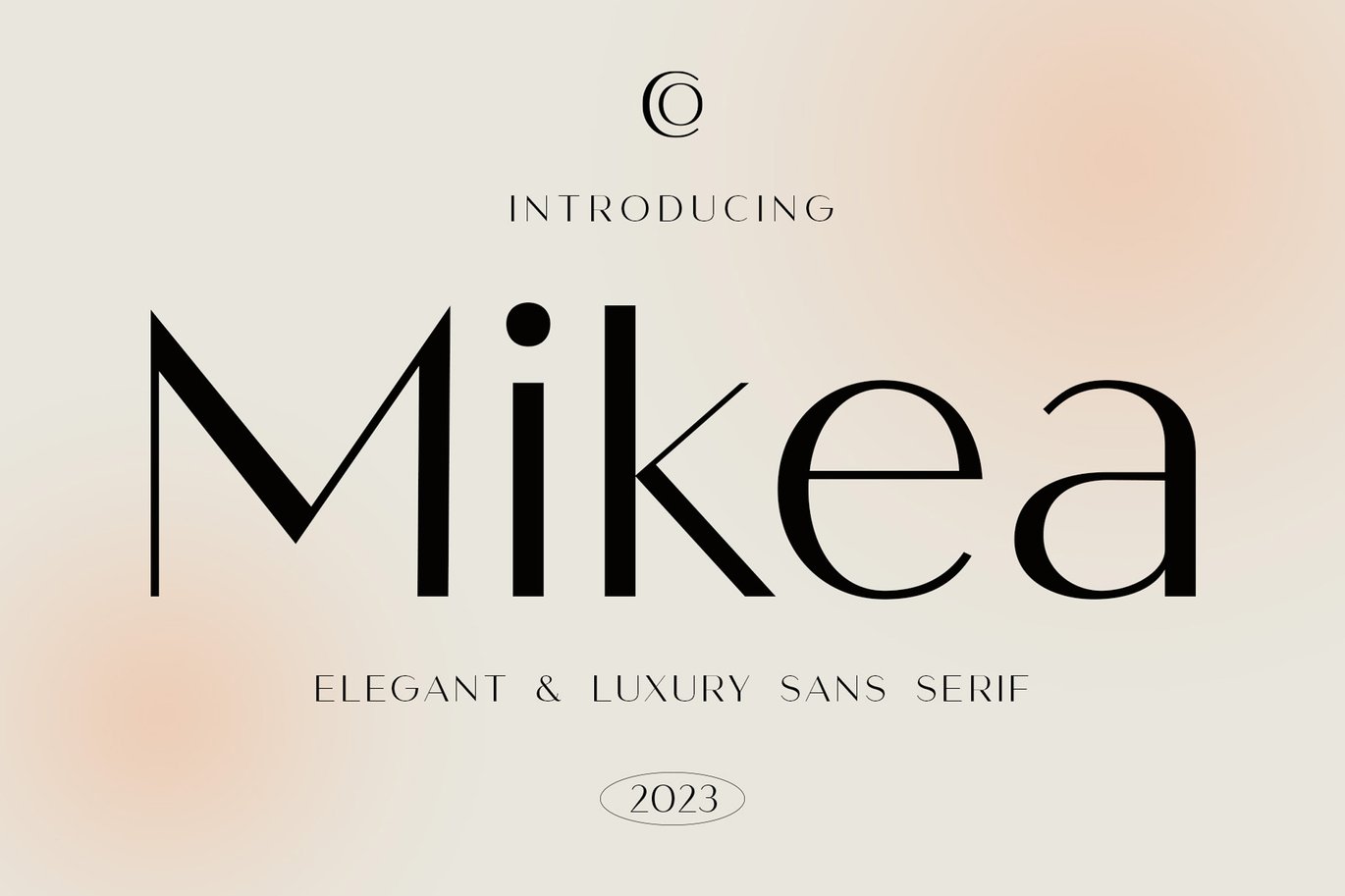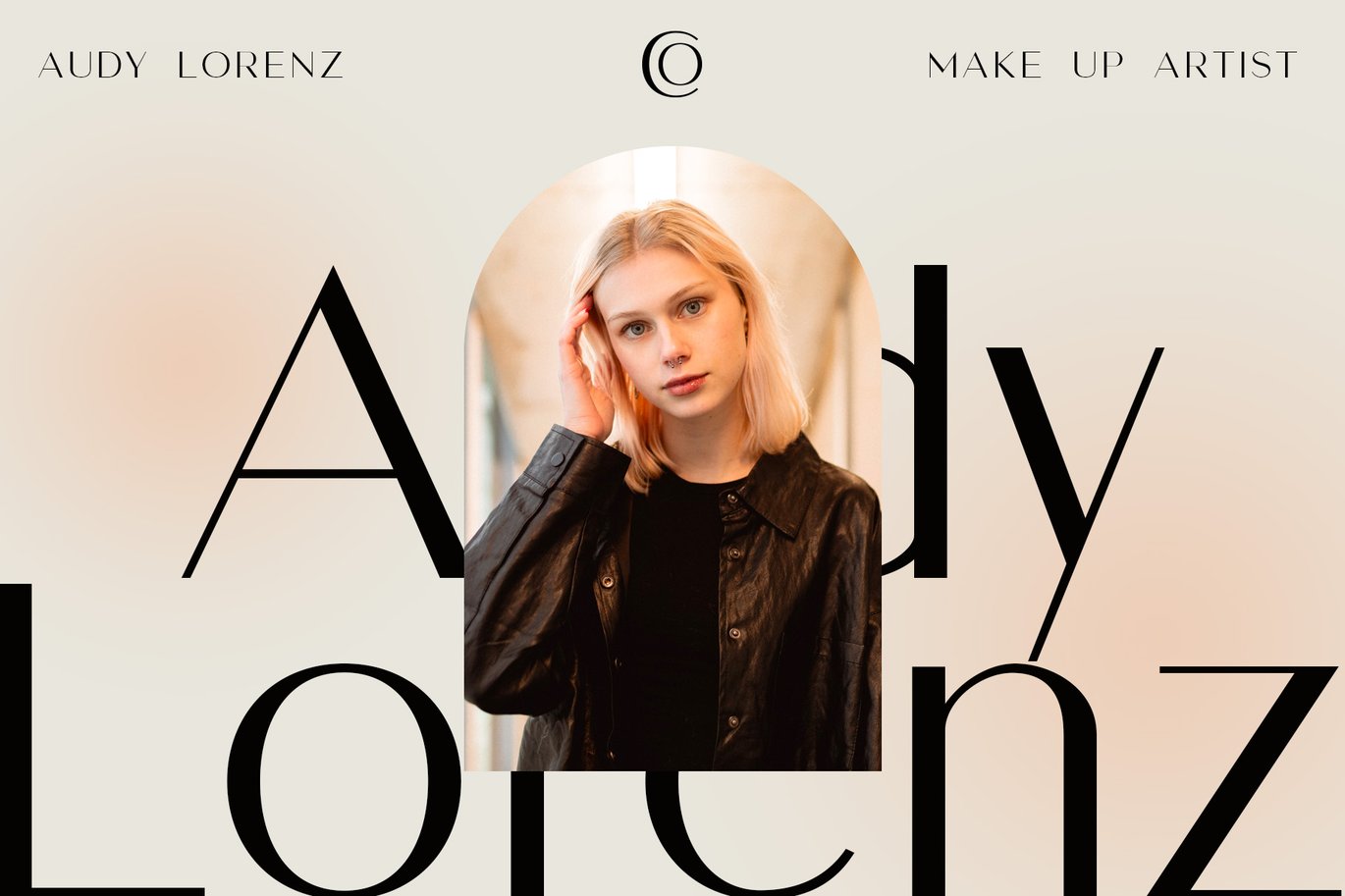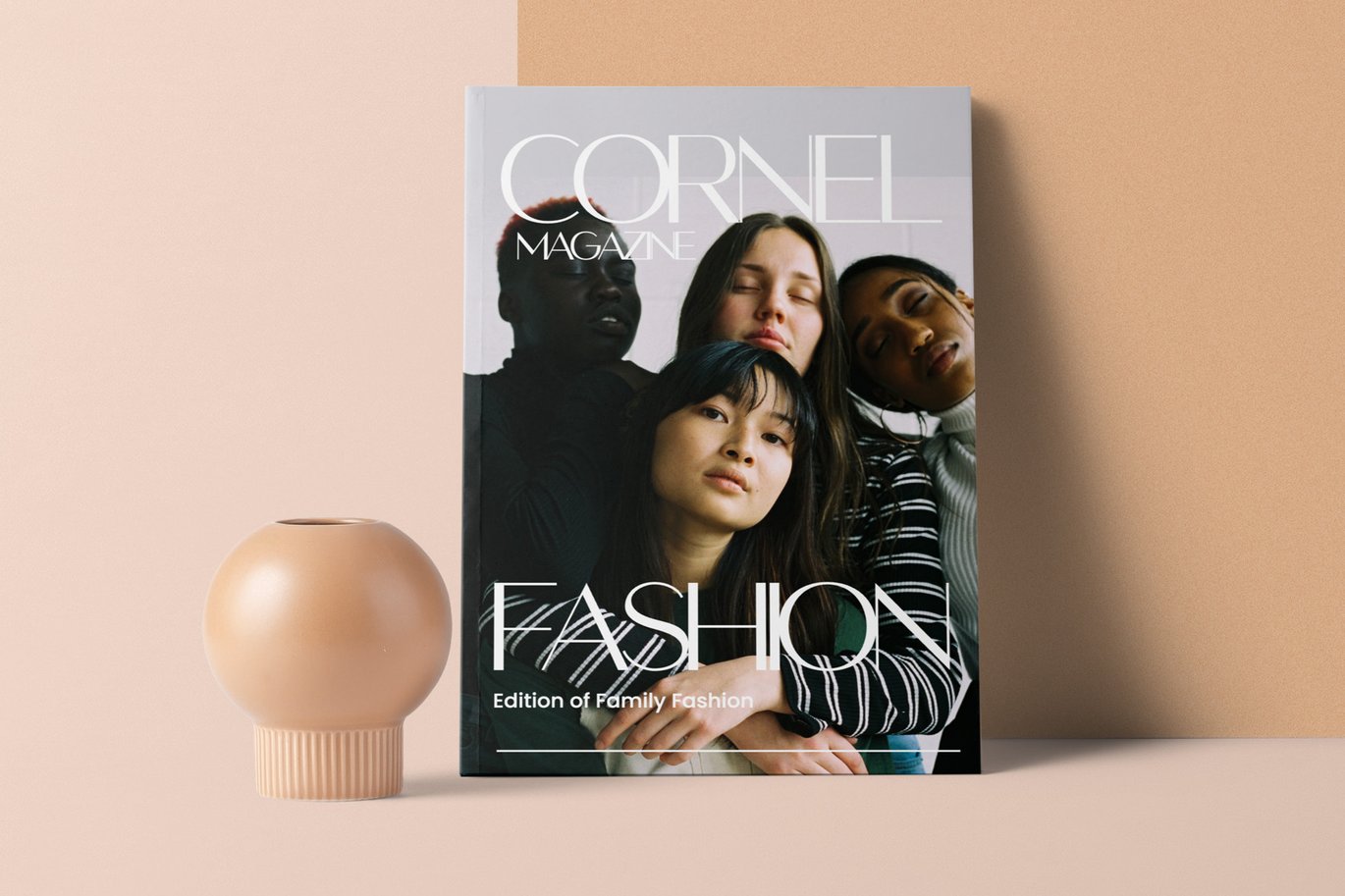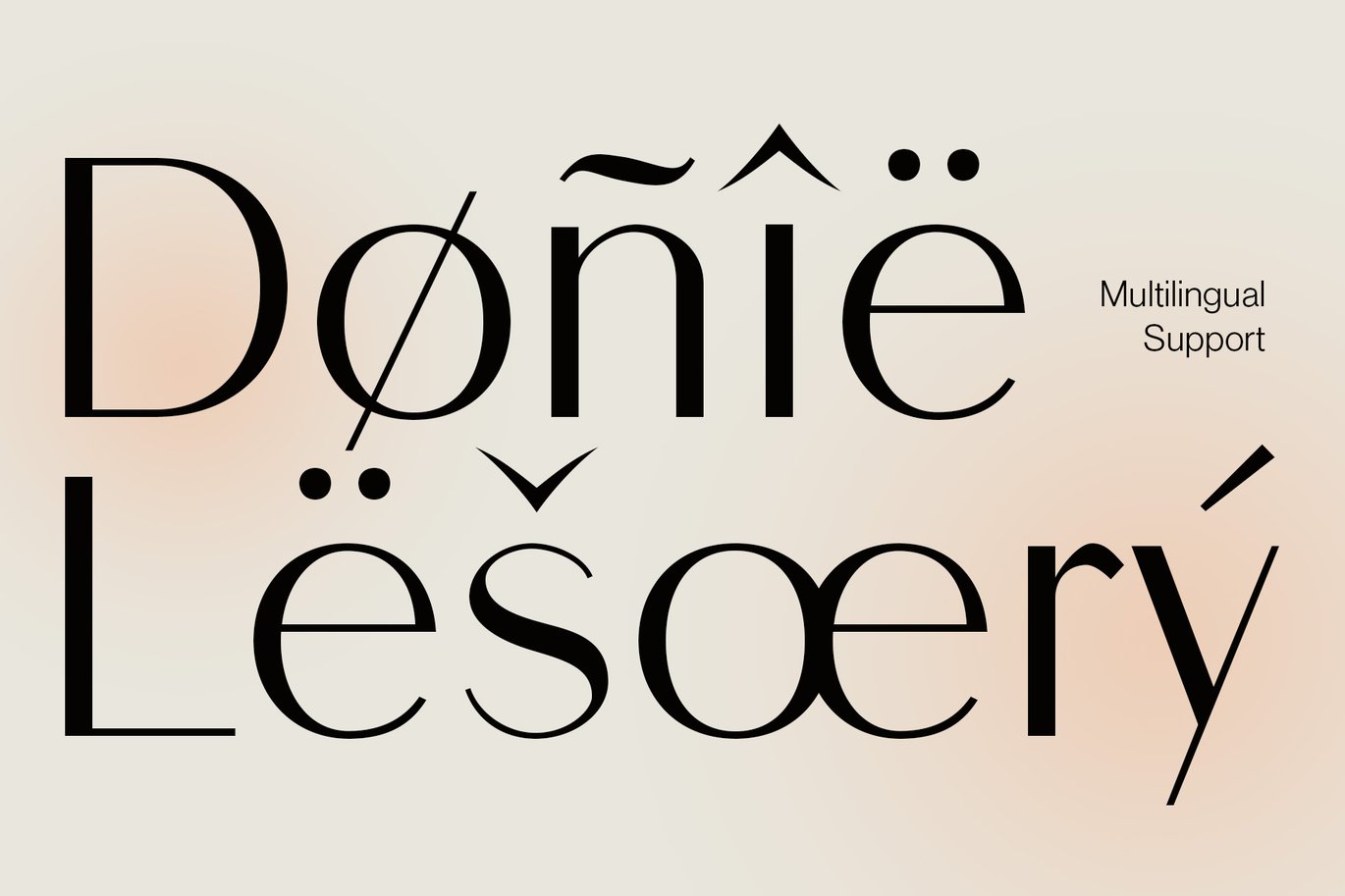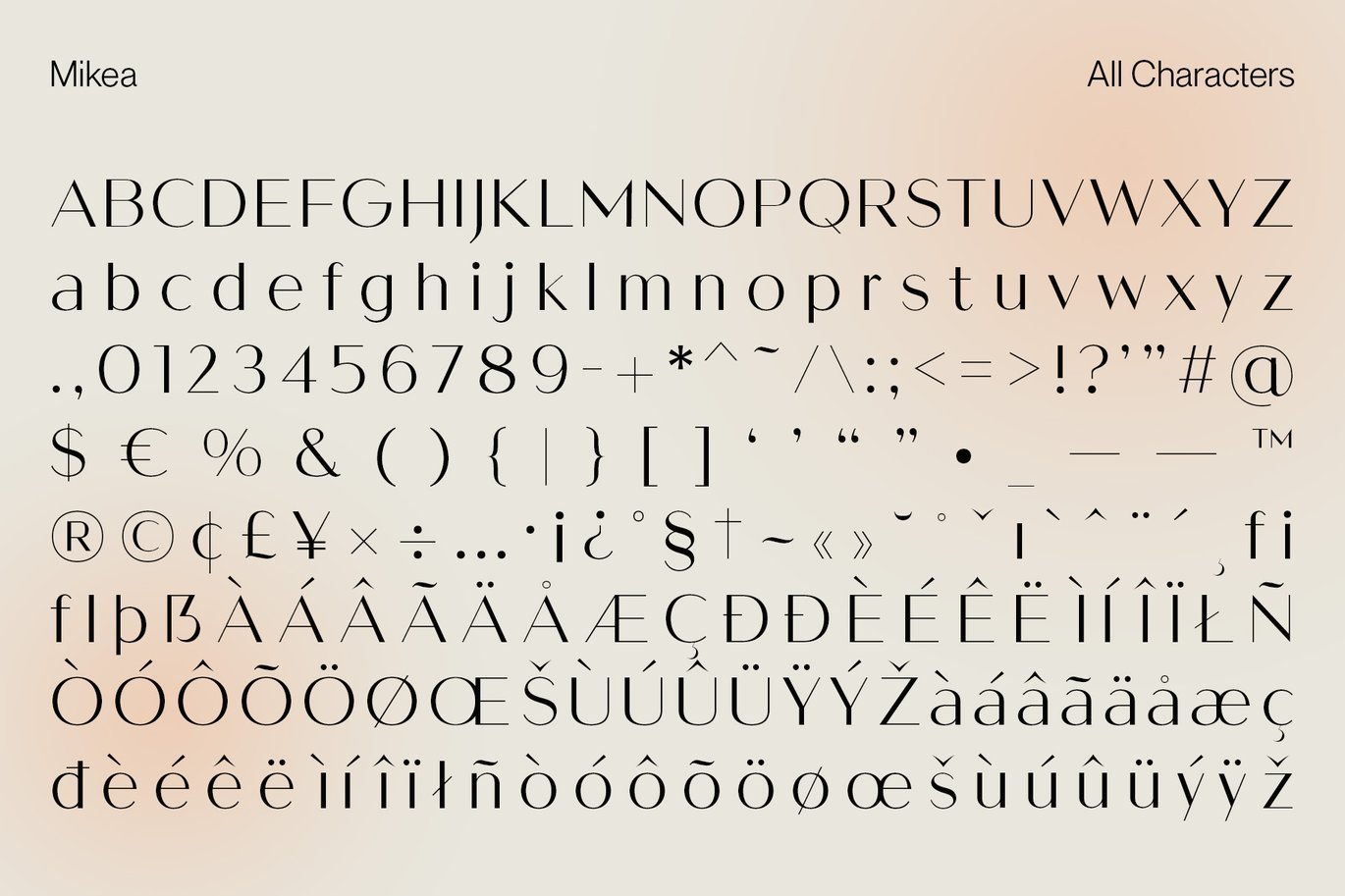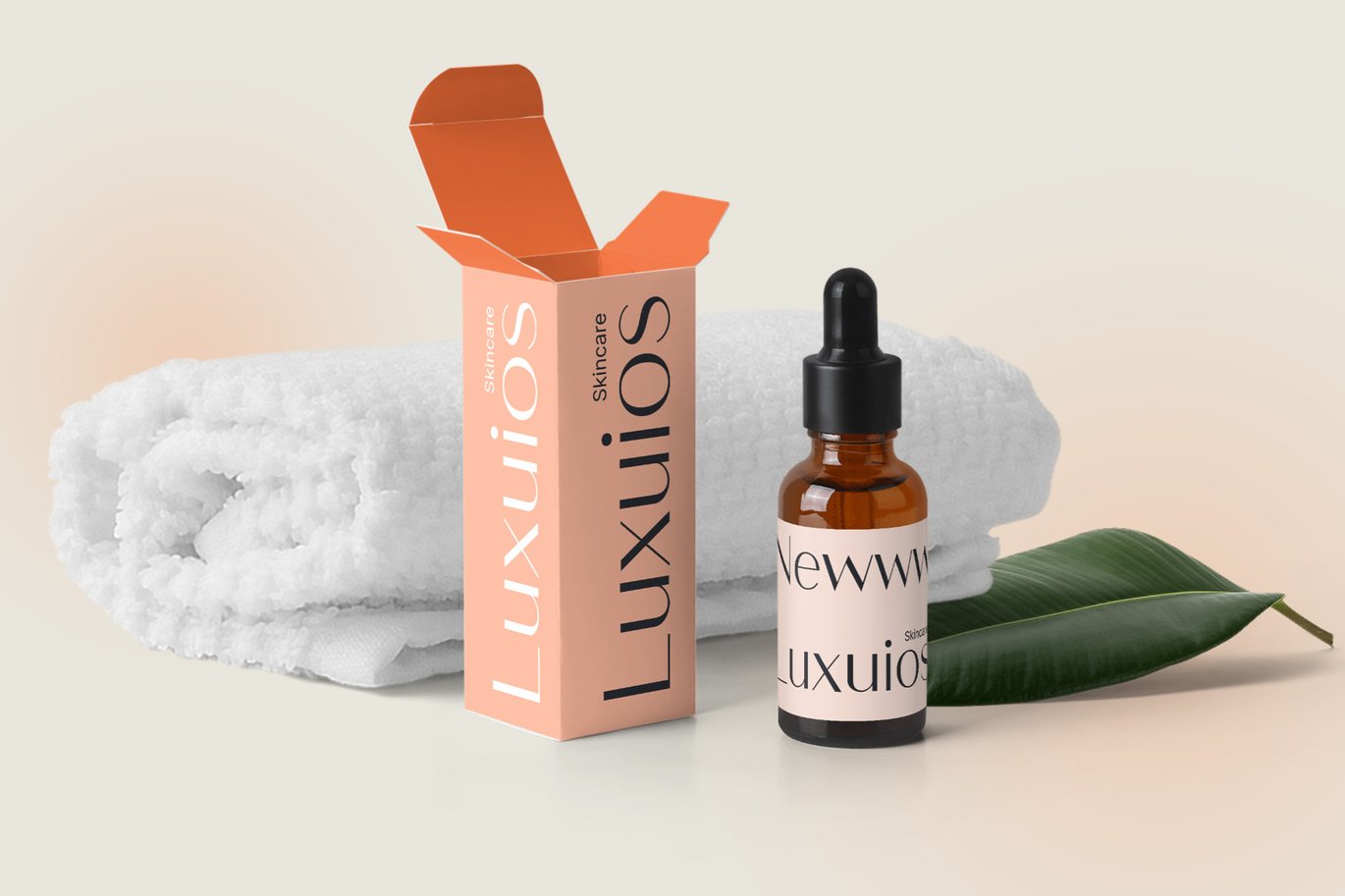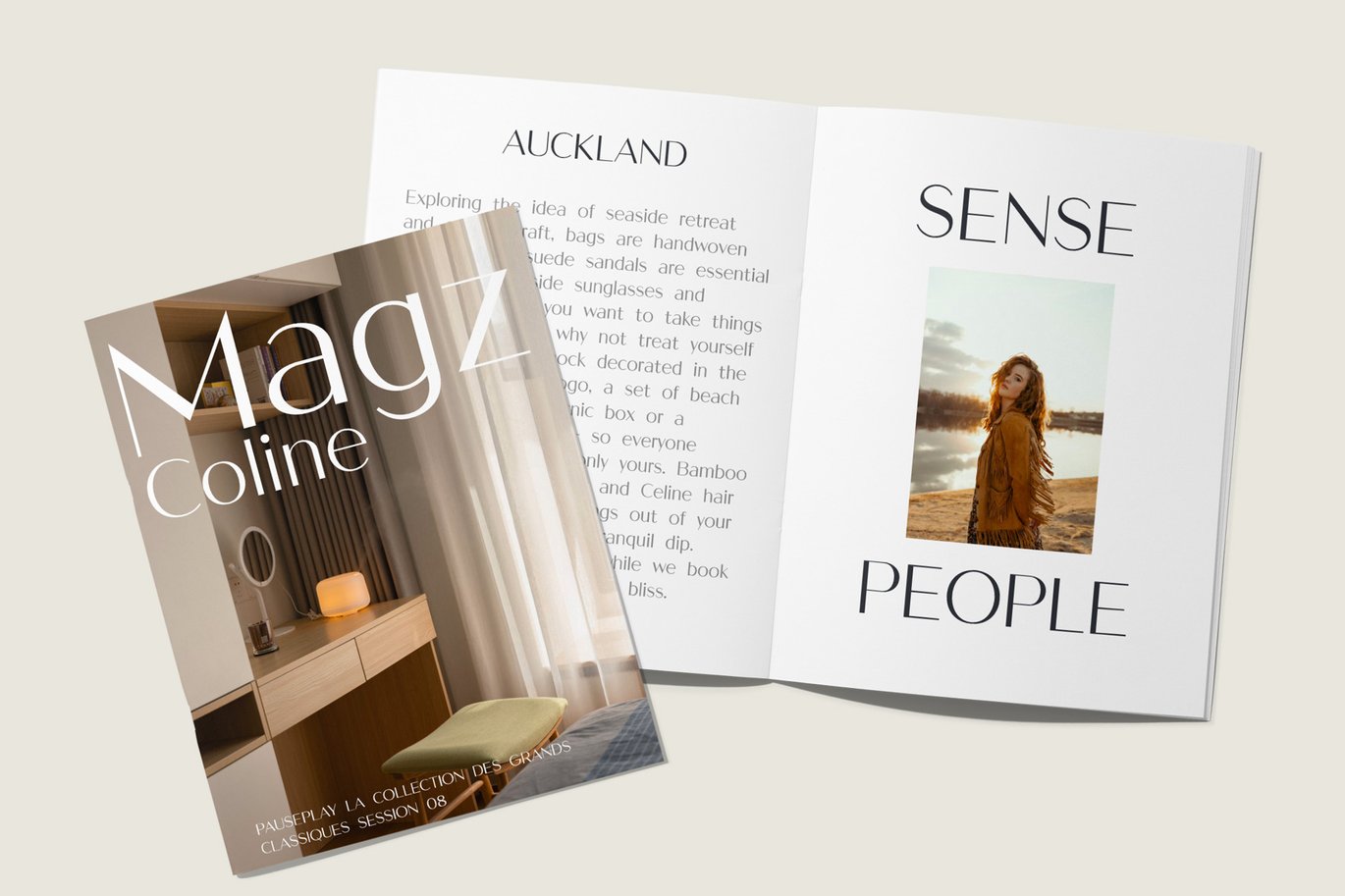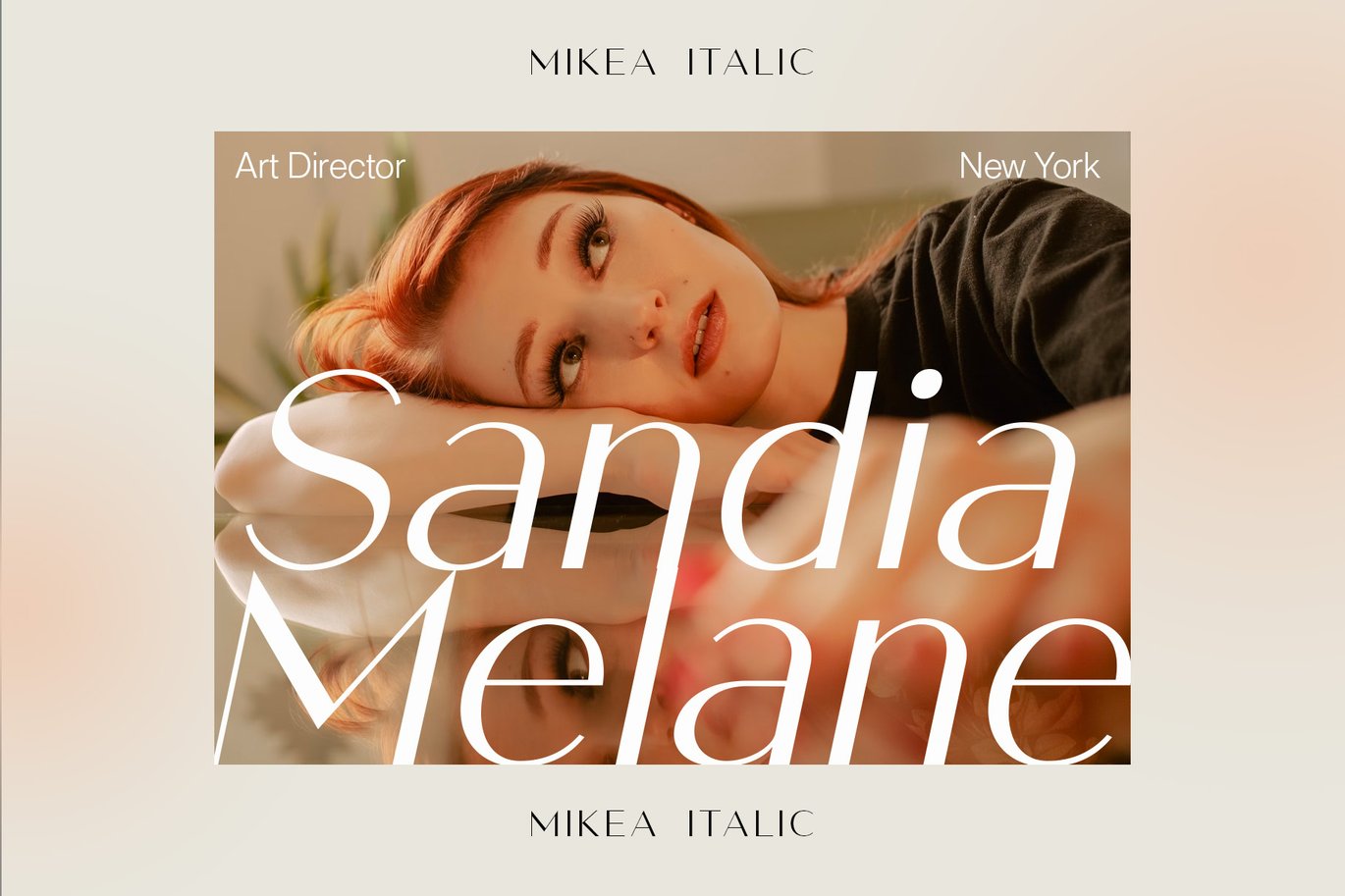
Mikea – Elegant Luxury Font
Introducing Mikea – Elegant Luxury Font
Elegance Personified
Mikea – Elegant Luxury Font is, without a doubt, the epitome of sophistication and class. It has been meticulously crafted to infuse a touch of opulence into your designs.
Luxury Redefined
Furthermore, this sans serif font exudes luxury in every letterform, making it an ideal choice for projects that require a sense of opulence and refinement. It takes the concept of luxury to a whole new level.
Timeless Elegance
Mikea encapsulates timeless elegance. It ensures that your designs maintain a sense of prestige and grandeur that stands the test of time. With Mikea, your work exudes a classic charm.